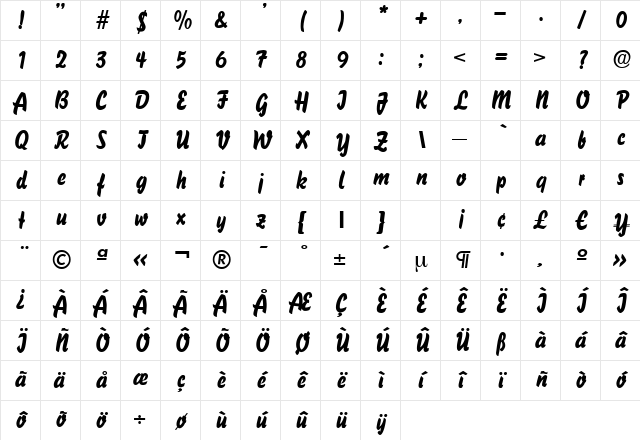
B731-Deco Regular
Design Context for B731-Deco
B731-Deco is a composed and adaptable typeface that performs quietly and consistently across a wide range of design contexts.